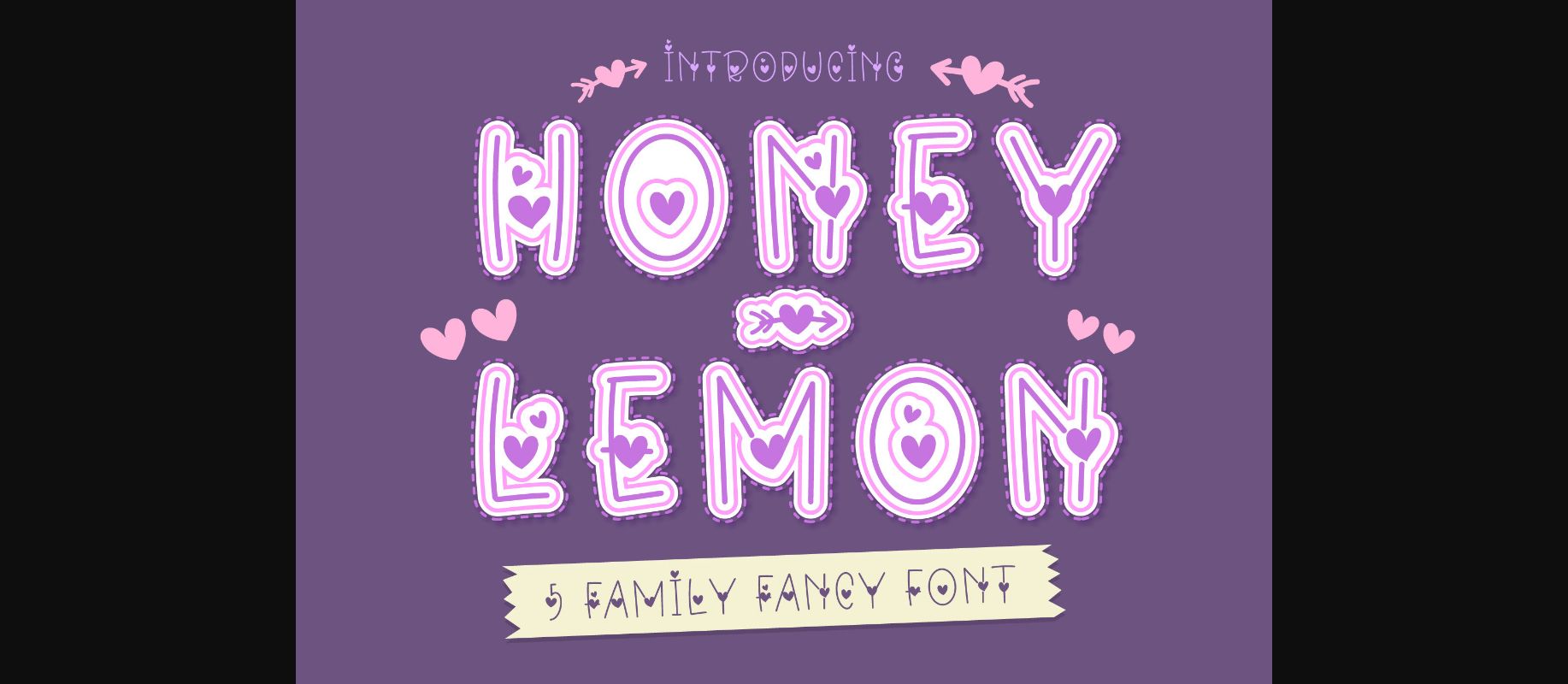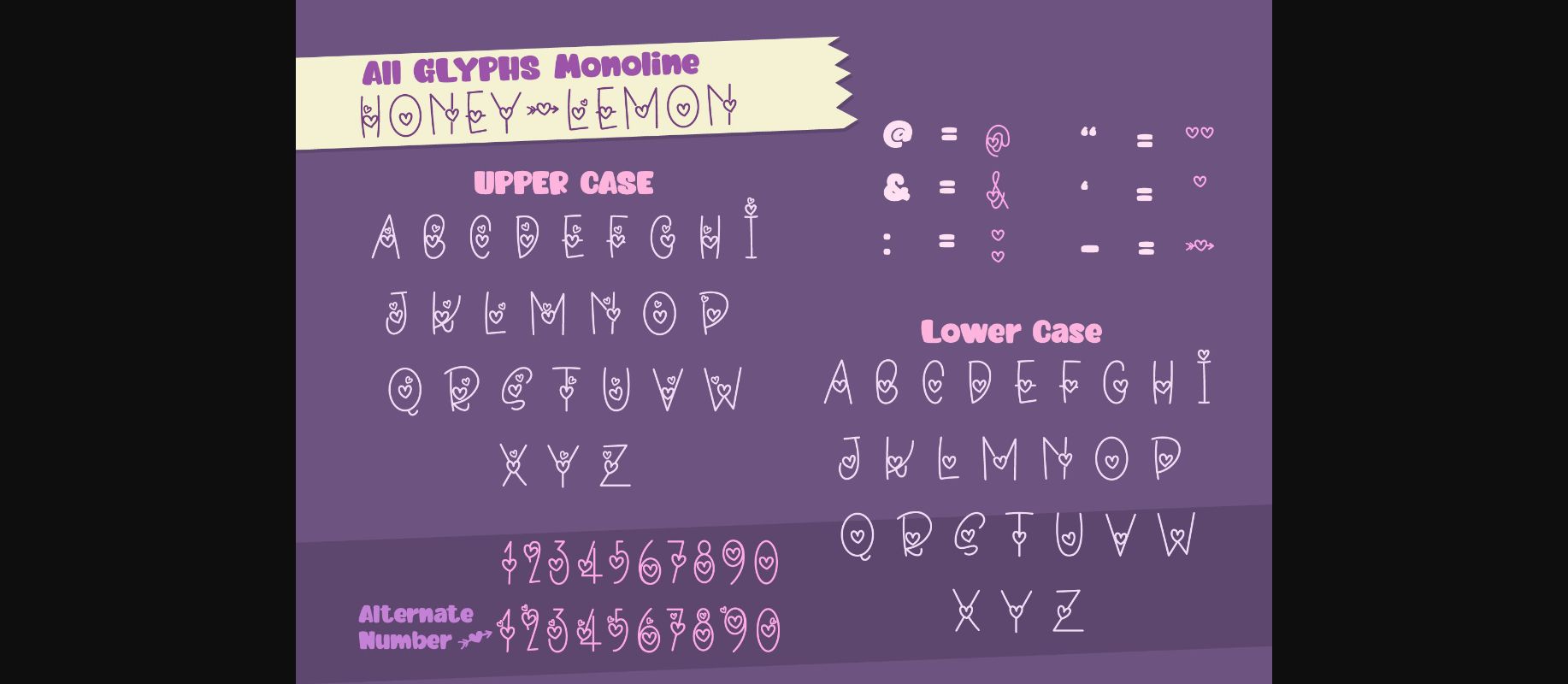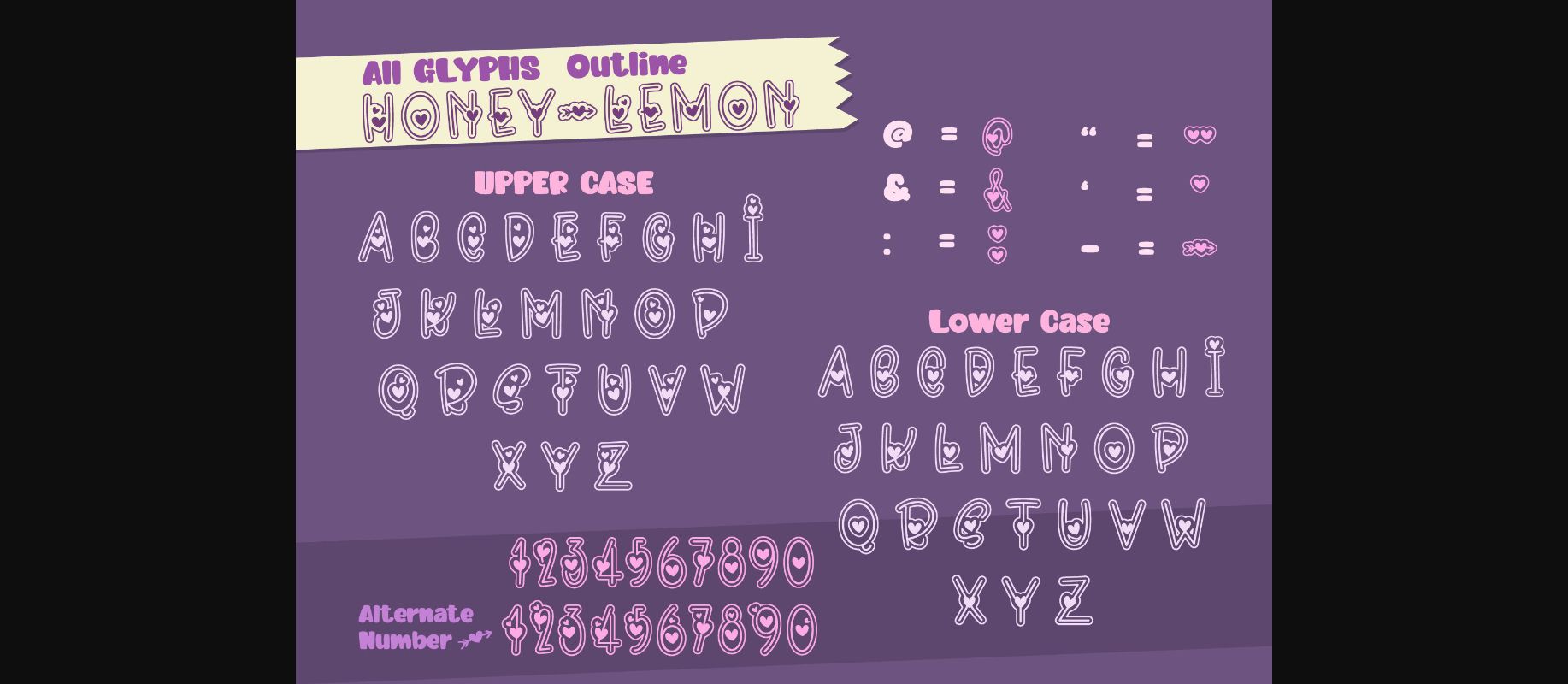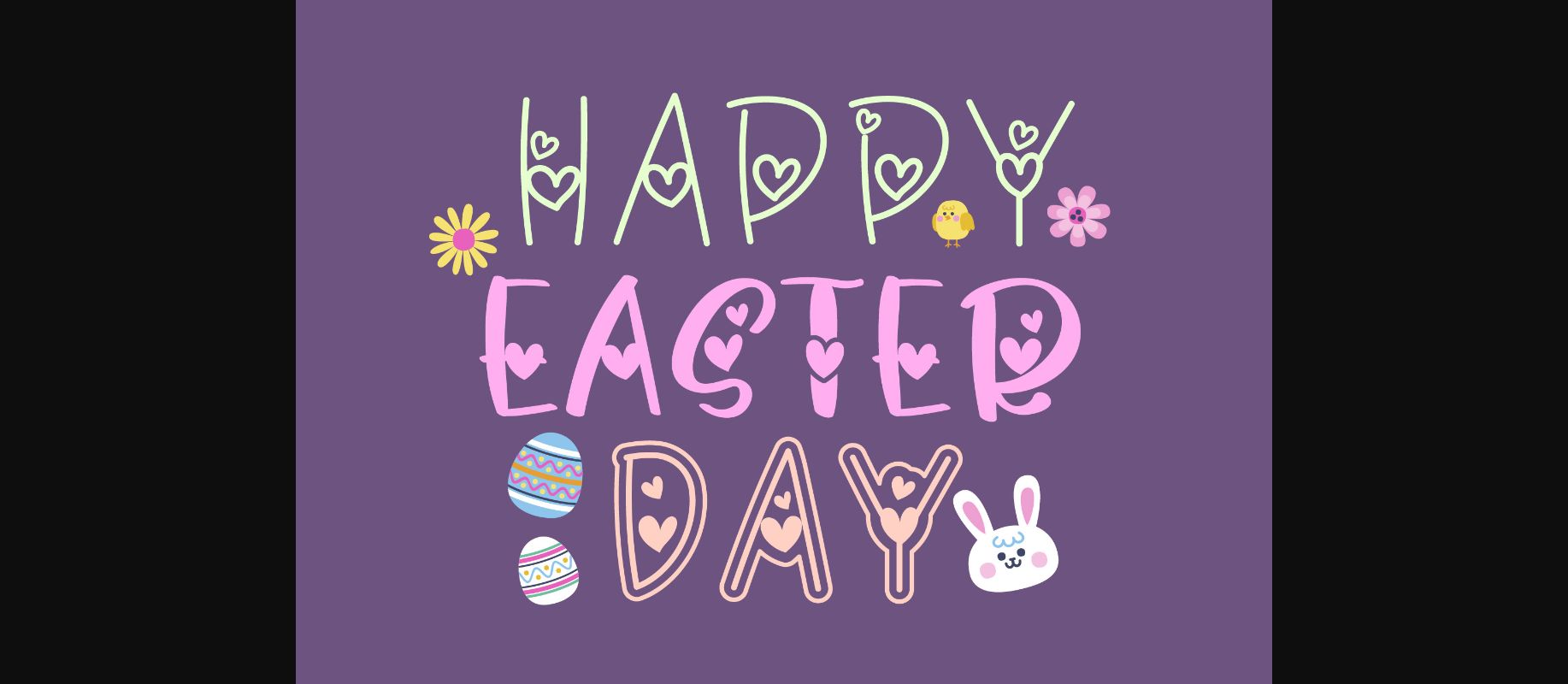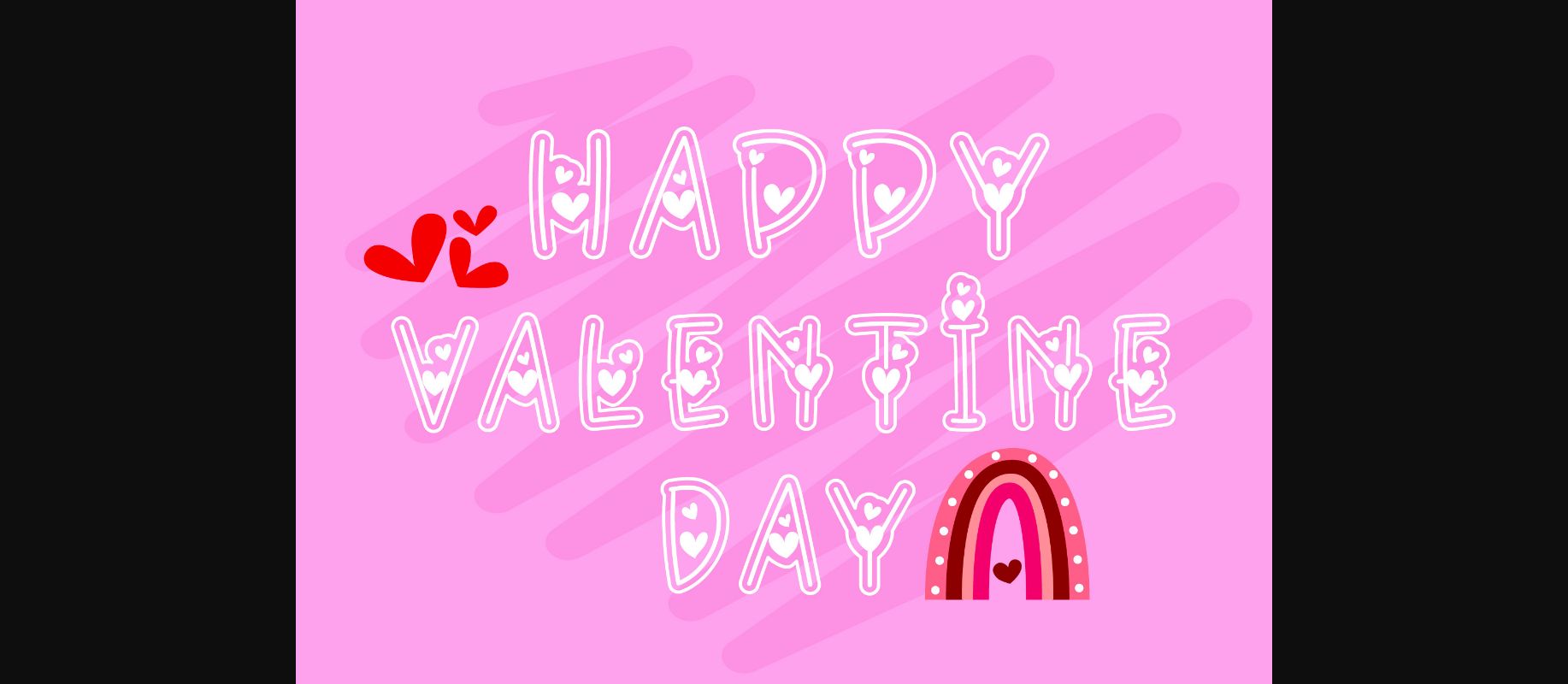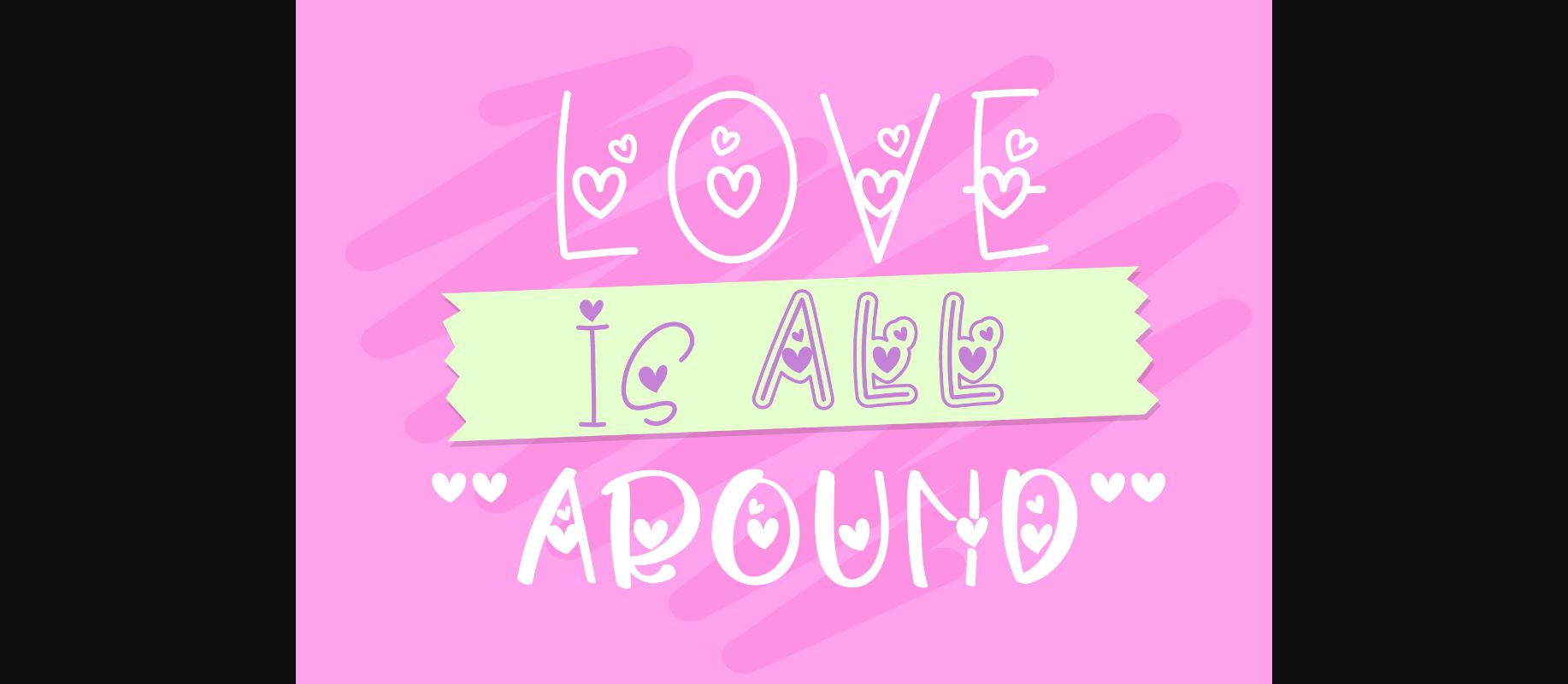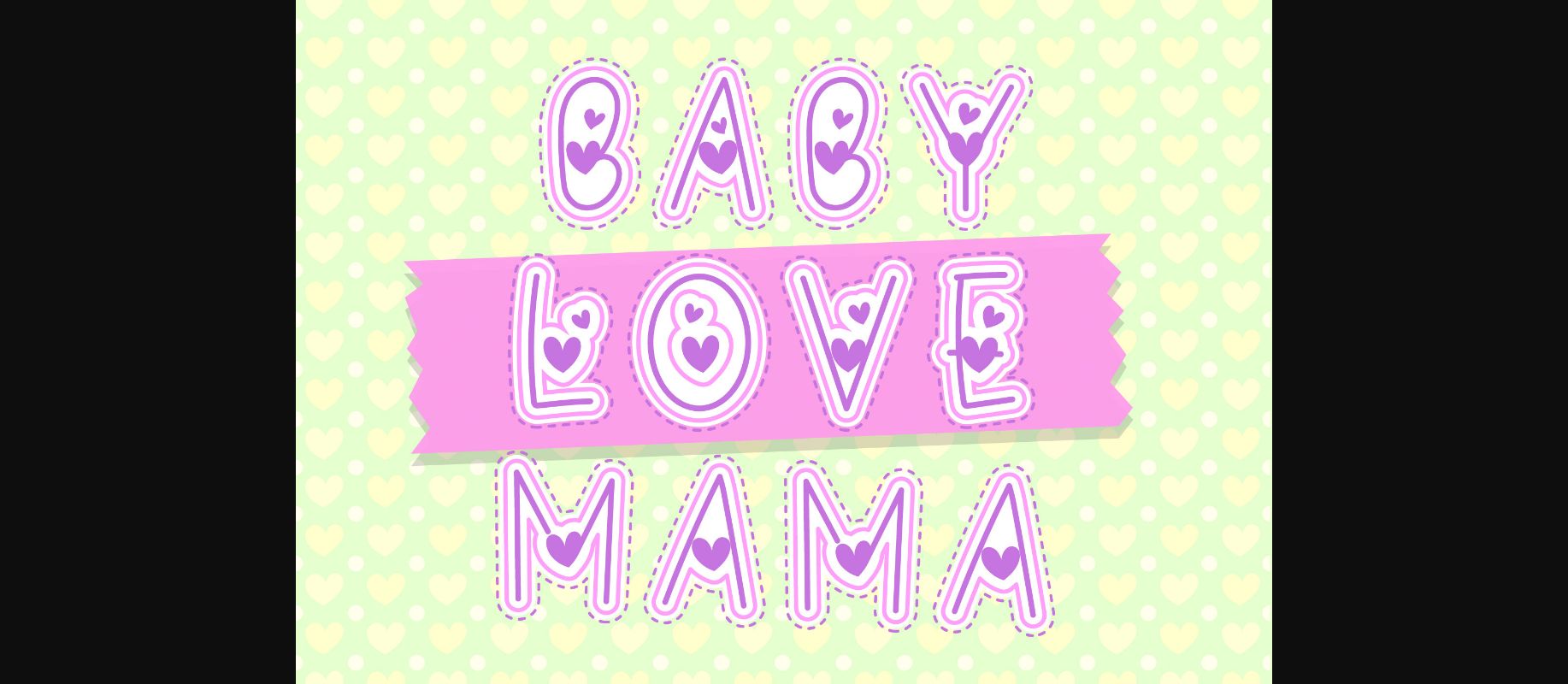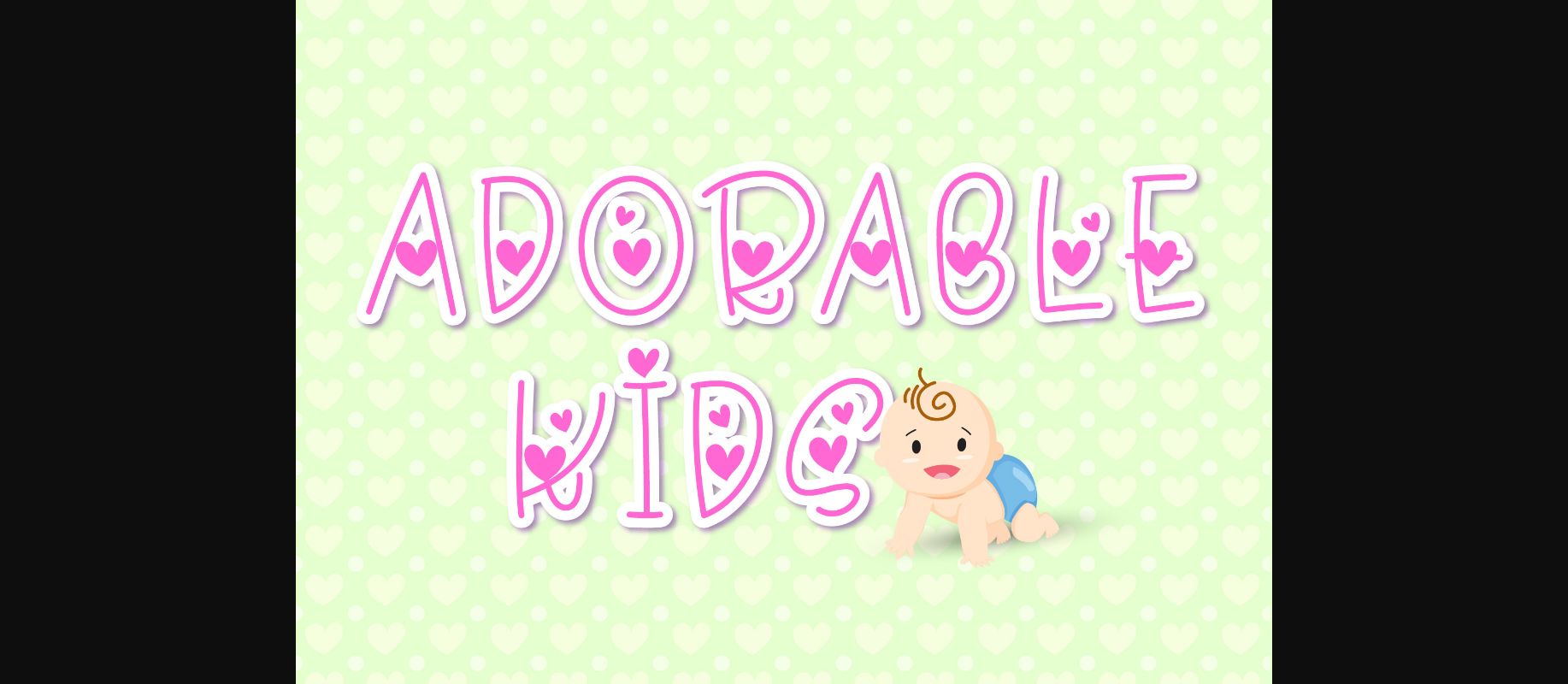
Honey-Lemon Font
About Honey-Lemon Font
Honey-Lemon is a playful decorative font. You can use it to create unique designs, book covers, birthday cards, greeting cards, as well as many other creations.